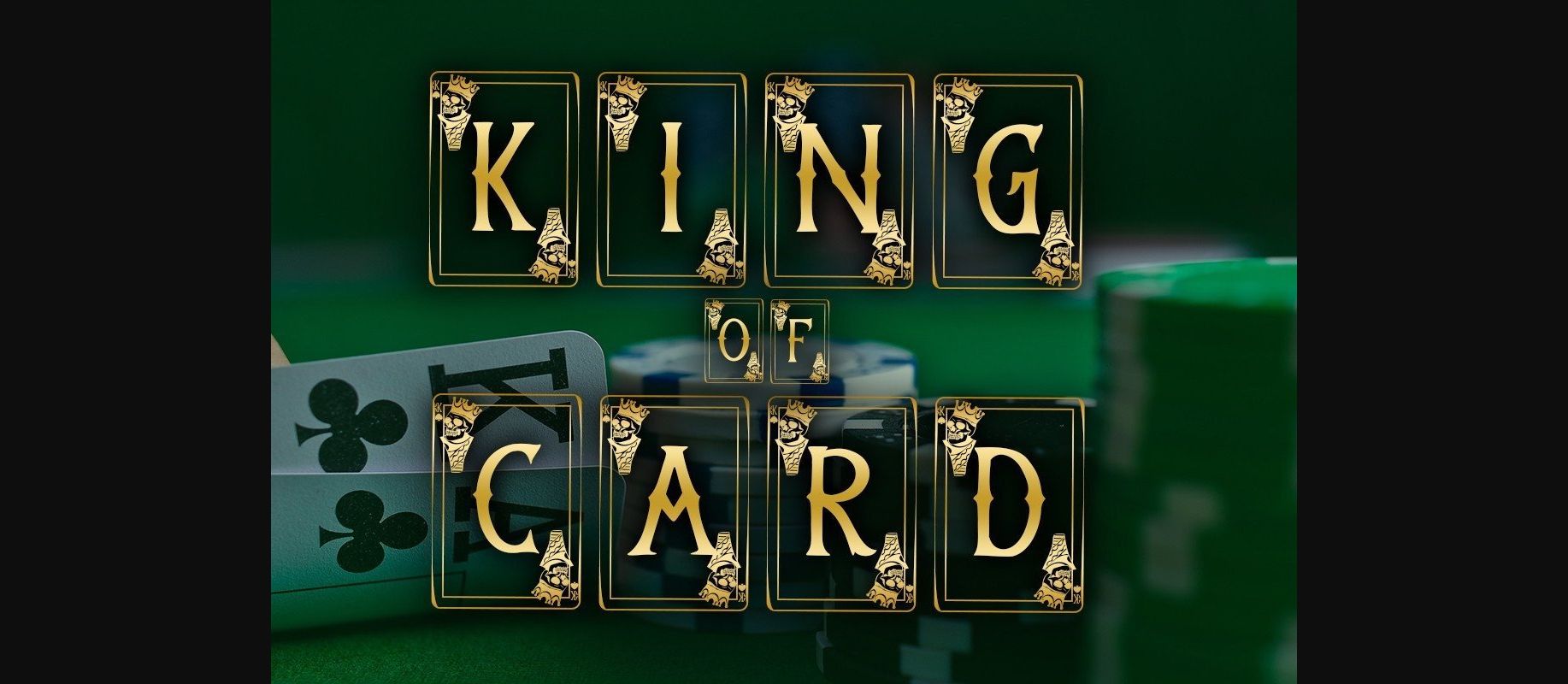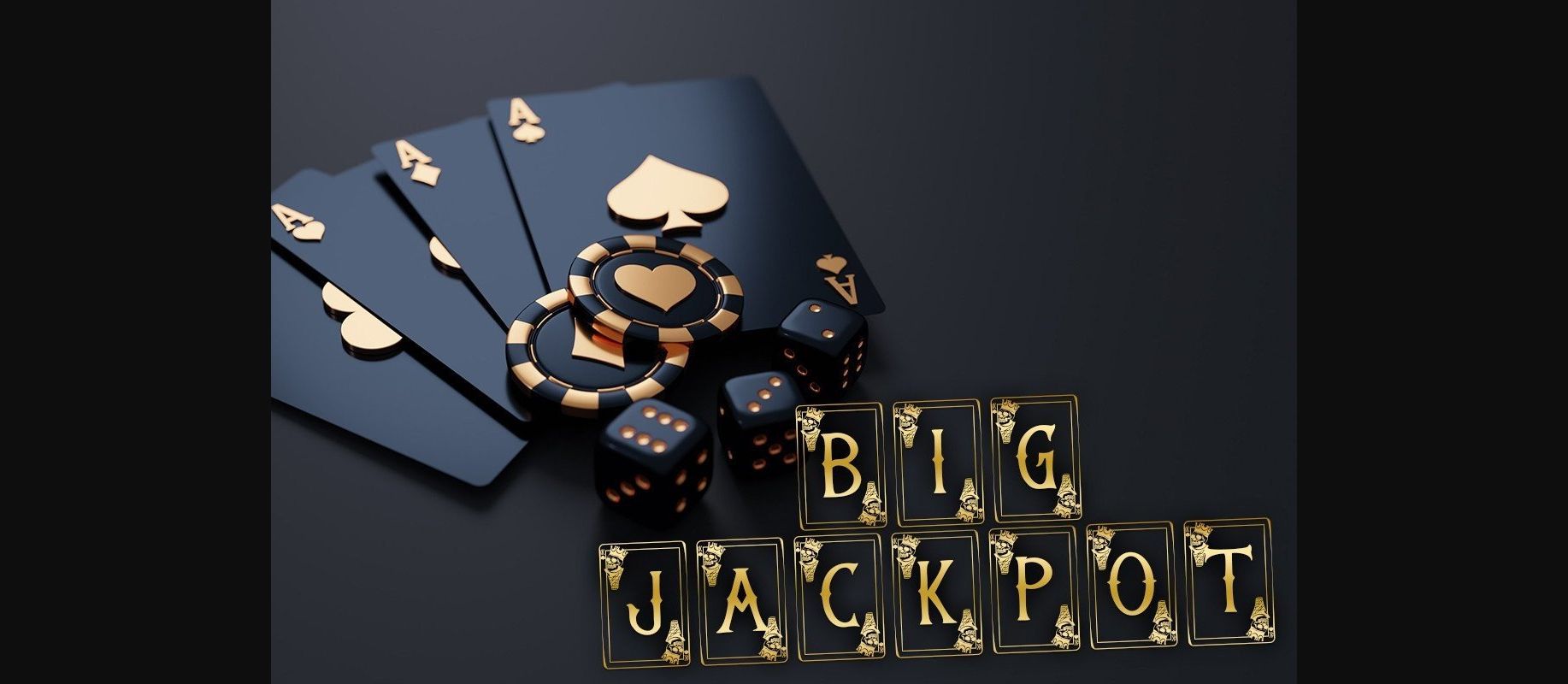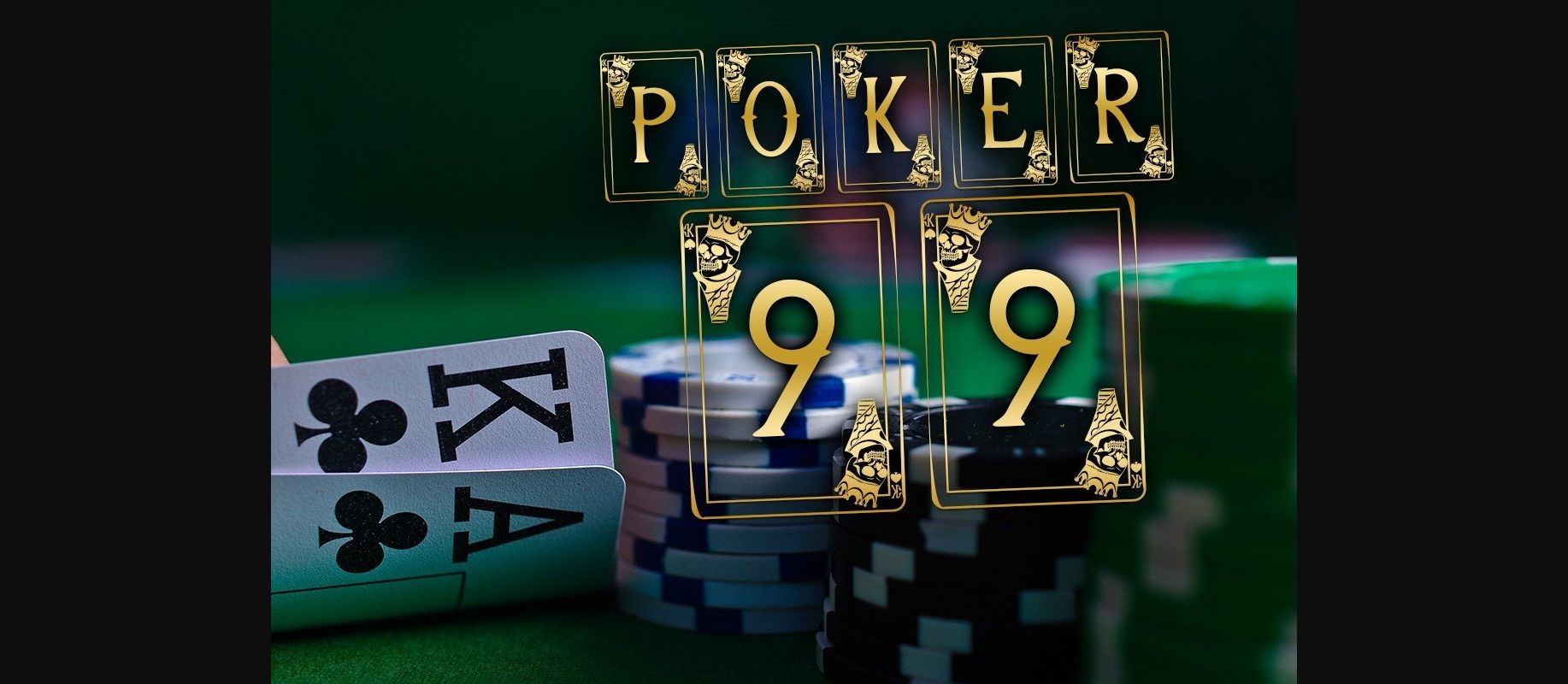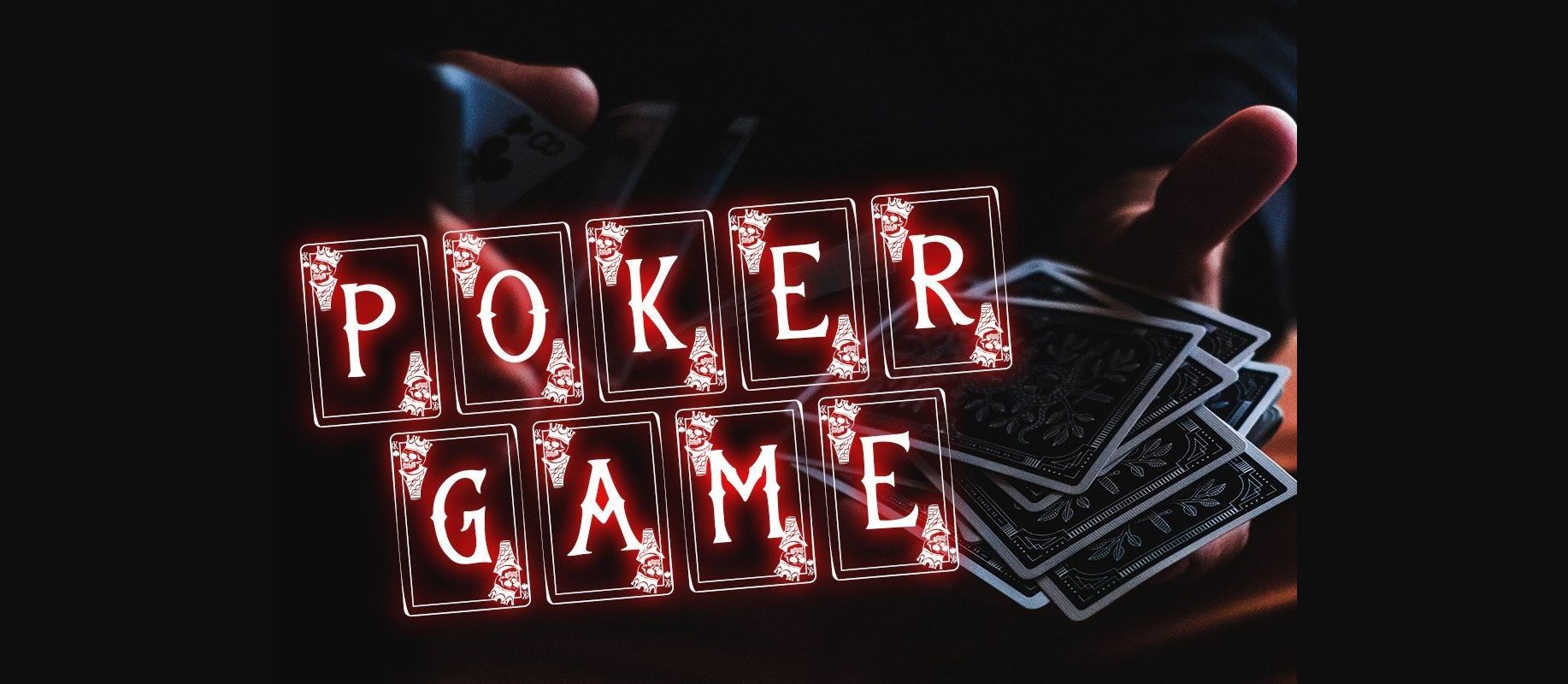
HomeDecorative FontsKing of Card Font Decorative Fonts King of Card Font FacebookXPinterestWhatsApp 1 of 6 ... King of Card Font Poster 2... King of Card Font Poster 3... King of Card Font Poster 4... King of Card Font Poster 5... King of Card Font Poster 6... About King of Card Font King of Card is an incredibly unique decorative font. Add it to your most creative ideas, and notice how it transforms them into authentic pieces of art! DOWNLOAD NOW People also explored Solar System Font Aljamain Font Menttimes Font Vintage Christmas Font Tropicola Font Qore Dunos Font Scientist Font Busker Road Racer Font 407 0 TagsKing of Card Font Previous articleMermaid FontNext articleWinter Lovers Font LEAVE A REPLY Cancel reply Comment: Please enter your comment! Name:* Please enter your name here Email:* You have entered an incorrect email address! Please enter your email address here Website: Save my name, email, and website in this browser for the next time I comment. Personal Use Free Sybil Green Personal Use Free Read more about this font Propaganda Personal Use Free Read more about this font Leorio Personal Use Free Read more about this font Lumber Personal Use Free Read more about this font BLOG How to Install and Use Fonts on Windows, macOS, and Web Projects How to Install and Use Fonts on Windows, macOS, and Web Projects Fonts are a crucial part of design and branding. Whether you’re designing a... Top 10 Handwritten Fonts That Elevate Your Designs Elegant Wedding Invitation Fonts – Handwritten & Script Fonts Modern Sans-Serif Fonts That Brands Love in 2025